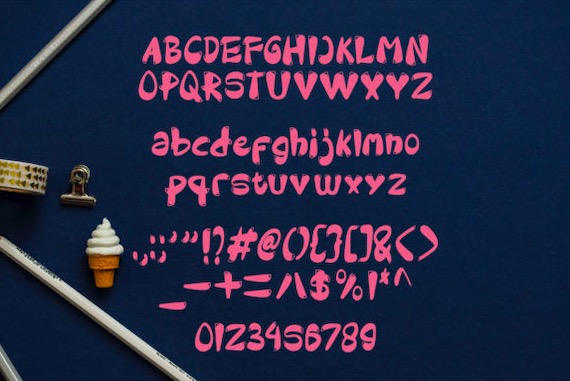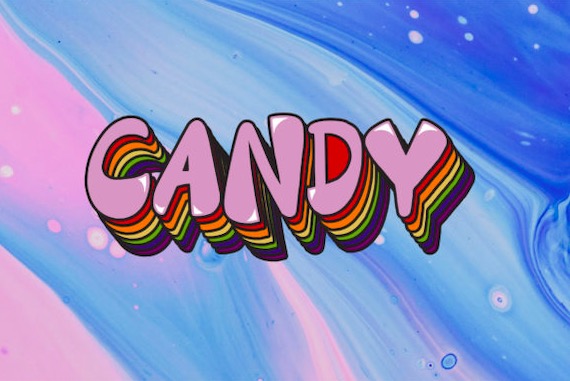
Bubblegum Font is a bubbly and cheerful display typeface that was created and shared by WAP. With its nice and sweet appeal, it is perfect for many different designs such as scrapbooking, print design, stationery, blog header, greeting cards, posters, blog header, and art quotes.
Bubblegum Display Font